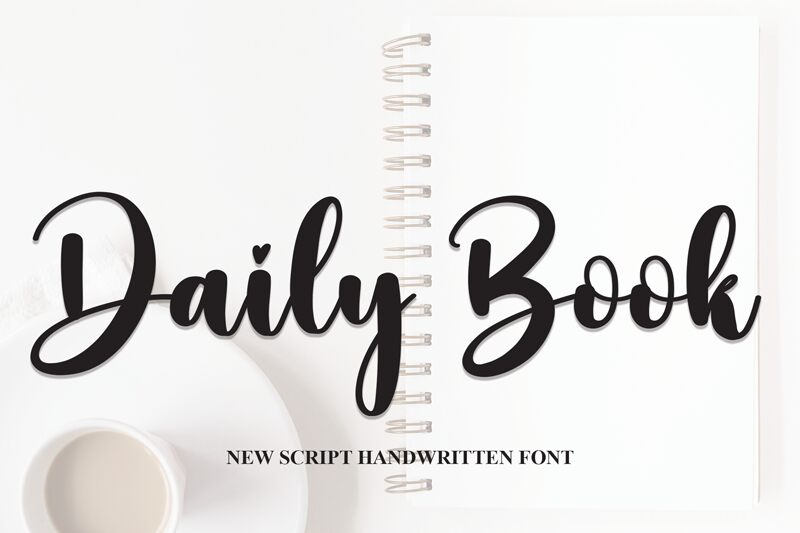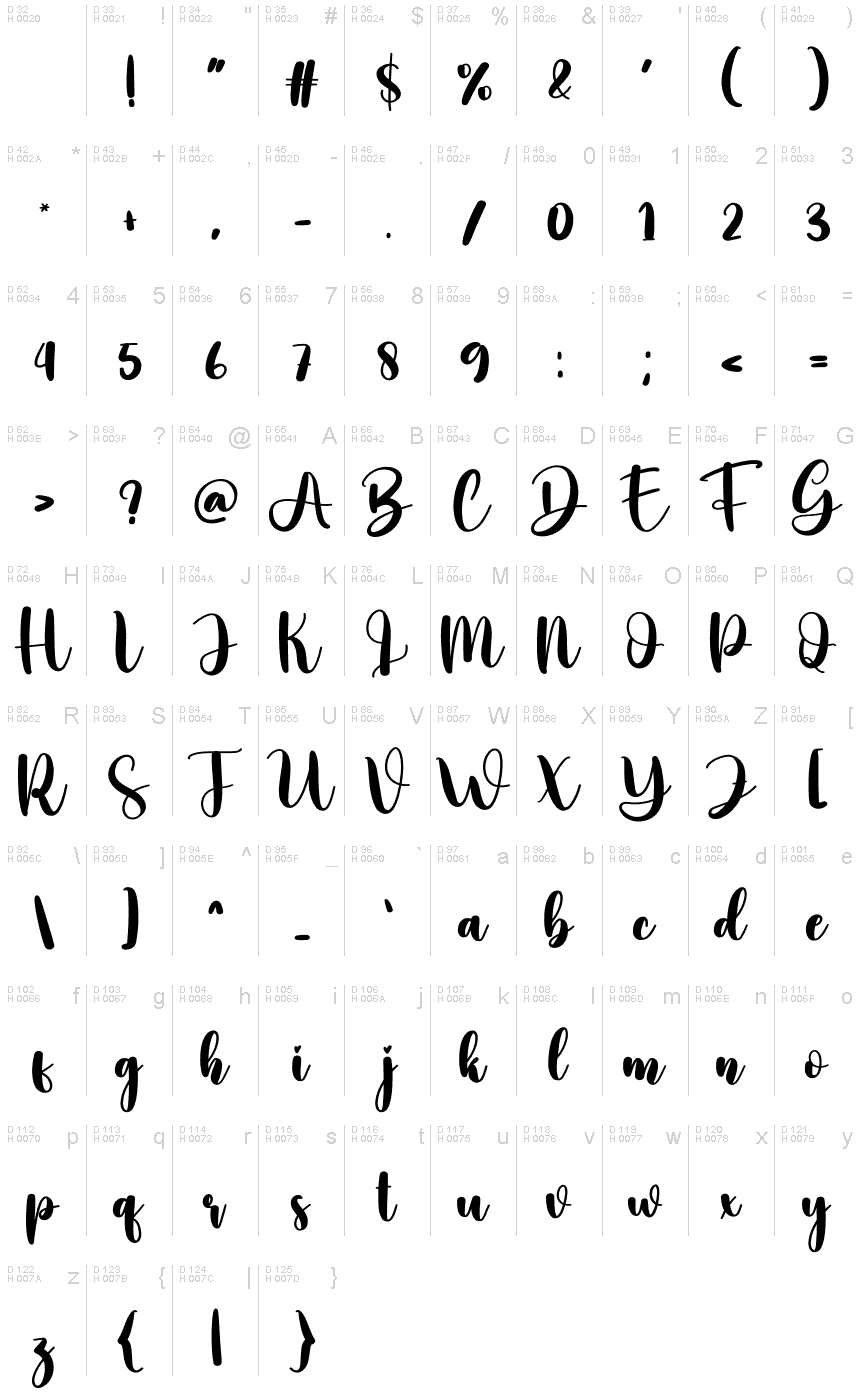
Daily Book
Daily Book, a creation by Scratchones, mesmerizes with its lovely calligraphy style. This semi-bold font adds an enchanting touch to various projects.
Its graceful curves and elegant strokes make it perfect for wedding invitations, where it exudes romance and sophistication. Daily Book also shines in branding projects, lending a refined yet approachable feel to logos and packaging designs. Its versatility extends to editorial layouts, enhancing the readability of magazines and books with its distinct charm.
Discover the magic of Daily Book as it brings beauty and allure to your creative endeavours.
The latest style letters are perfect for wall displays, wedding invitations, social media post logos, advertisements, product packaging, product designs, labels, photography, watermarks, invitations, stationery, and any project that requires taste handwriting.
Its graceful curves and elegant strokes make it perfect for wedding invitations, where it exudes romance and sophistication. Daily Book also shines in branding projects, lending a refined yet approachable feel to logos and packaging designs. Its versatility extends to editorial layouts, enhancing the readability of magazines and books with its distinct charm.
Discover the magic of Daily Book as it brings beauty and allure to your creative endeavours.
The latest style letters are perfect for wall displays, wedding invitations, social media post logos, advertisements, product packaging, product designs, labels, photography, watermarks, invitations, stationery, and any project that requires taste handwriting.